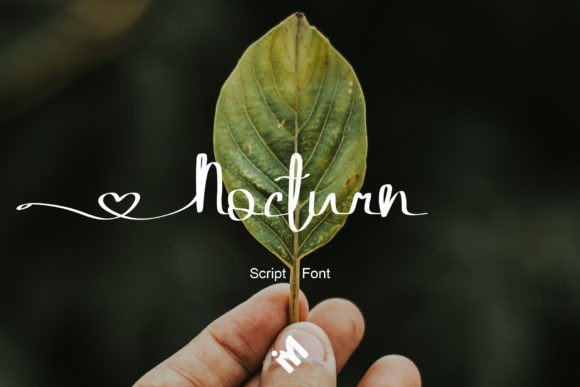
Nocturn is a natural-looking handwritten font perfect for branding, logomarks, watermarking on photography, invitations, merchandise, apparel, packaging, stationery, invitations, social media posts, and more.